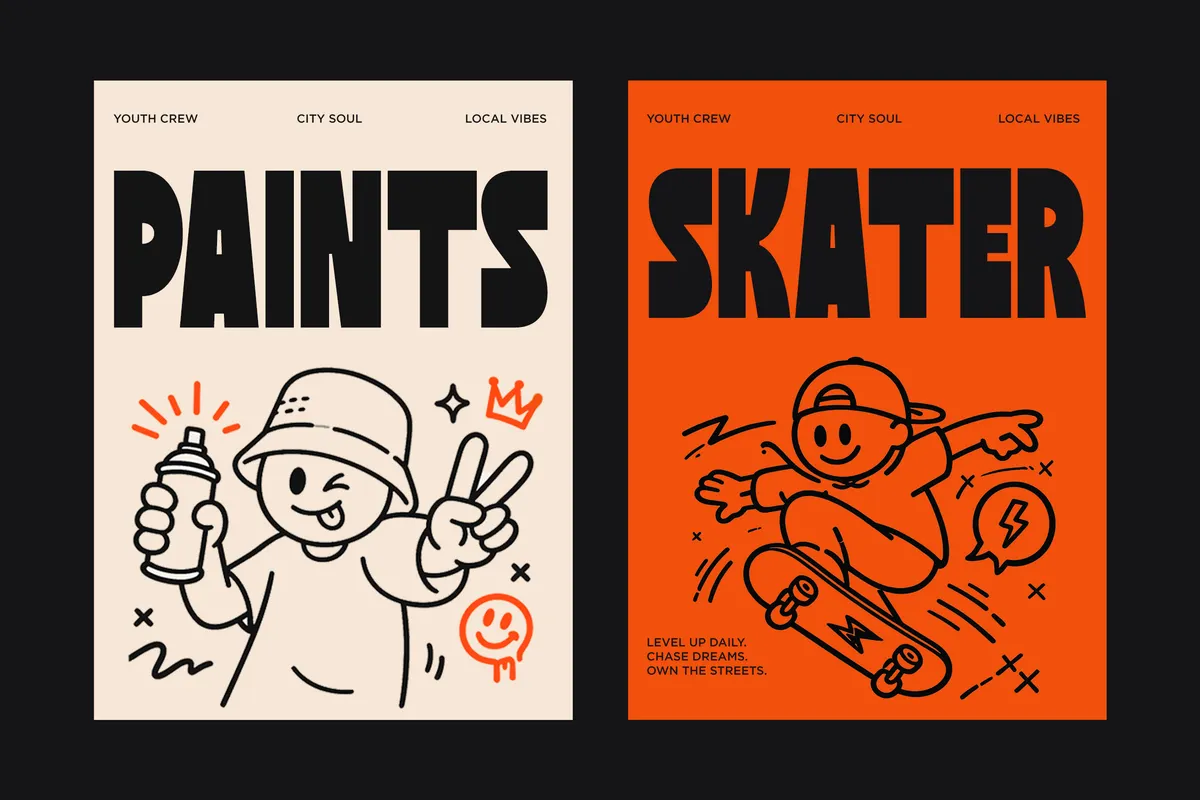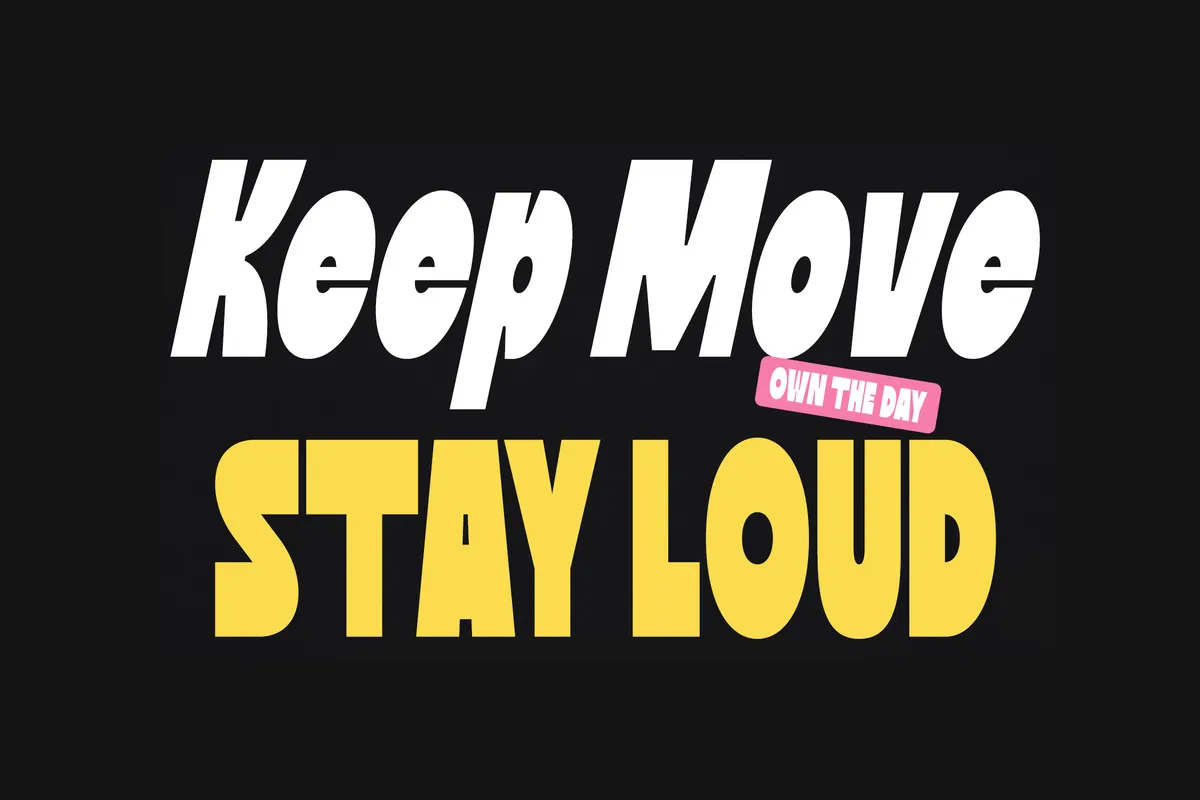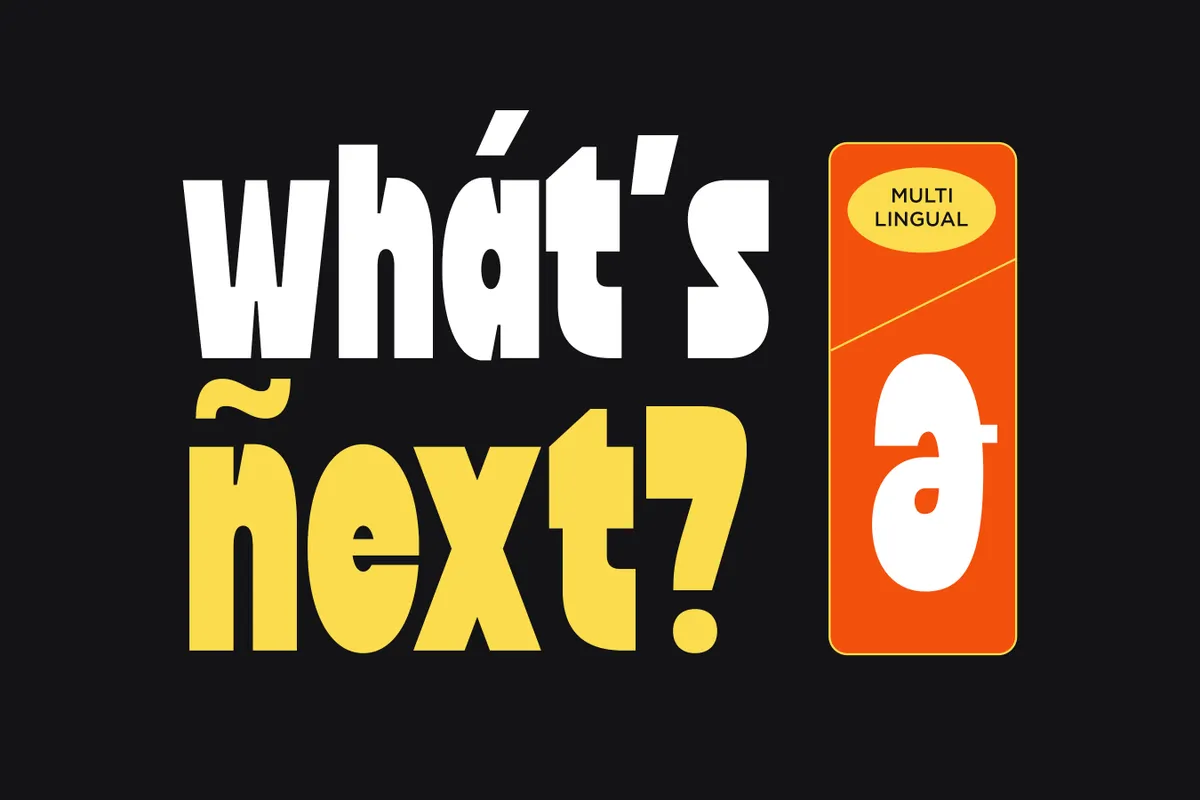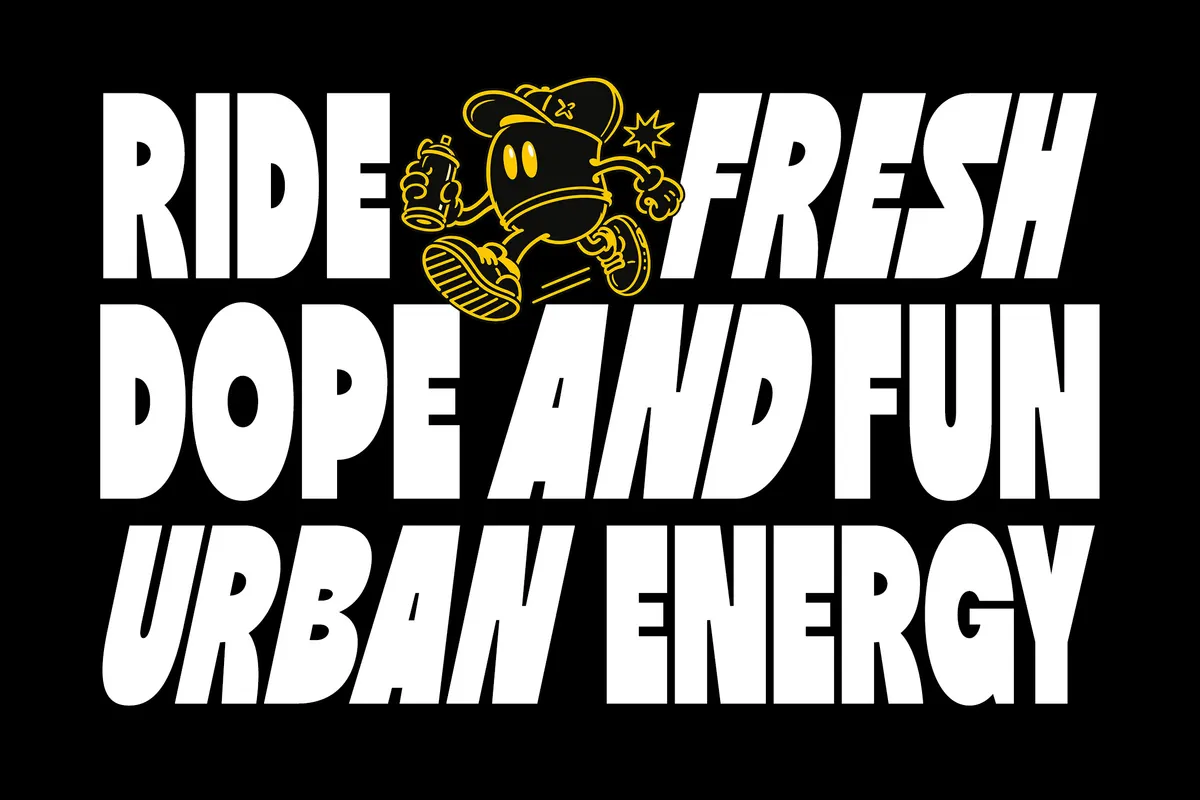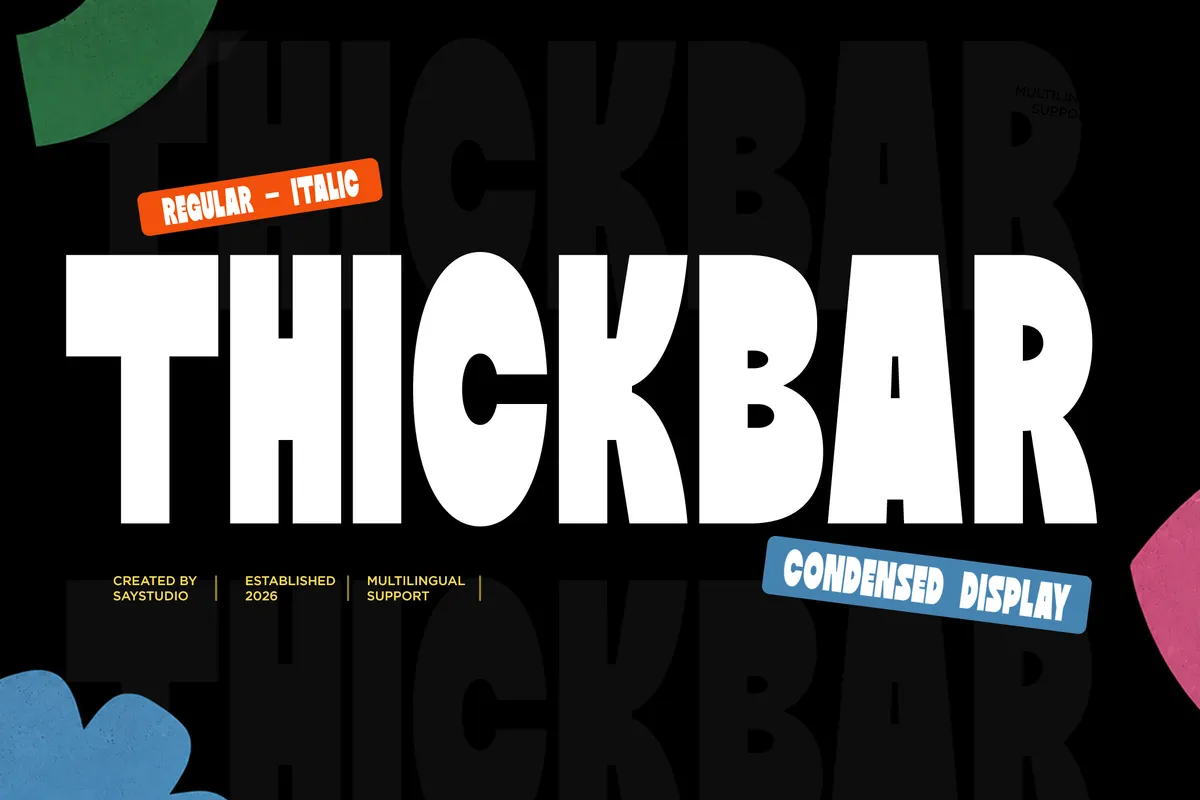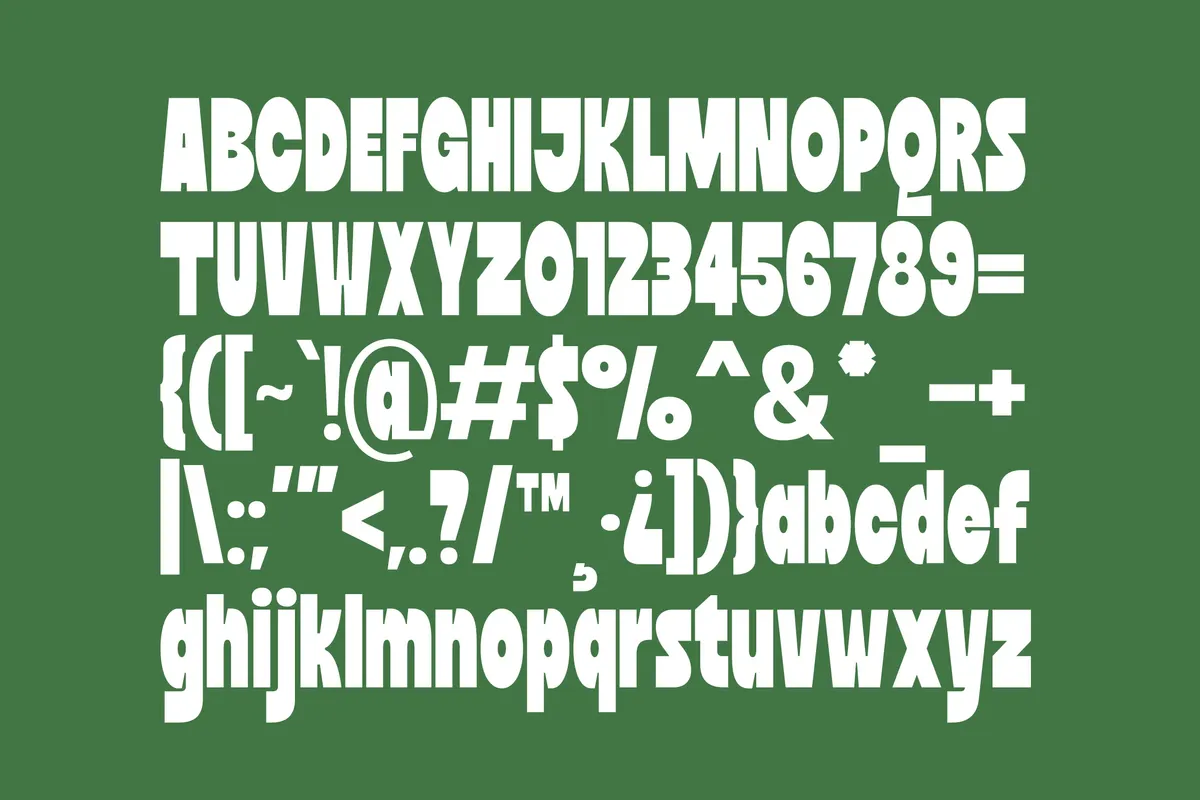
Thickbar - Bold Condensed Chunky Sans Font
Thickbar packs bold, blocky letterforms into a heavy display sans built for headlines that need to shout. An italic companion leans the same construction for secondary lines and accents.
Use it for posters, branding, logos, apparel, skate graphics, sports designs, and social media content that wants a confident, street-inspired voice.
- Regular & Italic;
- Uppercase & lowercase;
- Numerals, punctuation & symbols;
- Ligatures & superscript figures;